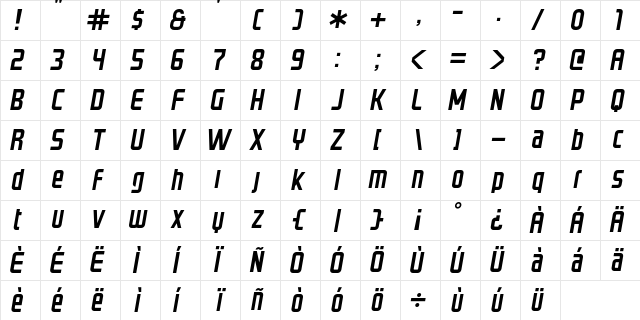
Complete GRAYSTROKE Italic glyph index. Displaying only characters natively supported by GRAYSTROKE Italic font.
GRAYSTROKE is a composed and adaptable typeface that performs quietly and consistently across a wide range of design contexts. The slanted form adds forward momentum and visual energy.
Pro Tip: Use GRAYSTROKE for emphasis, pull quotes, and subheadings where its slanted energy can add rhythm to the layout.